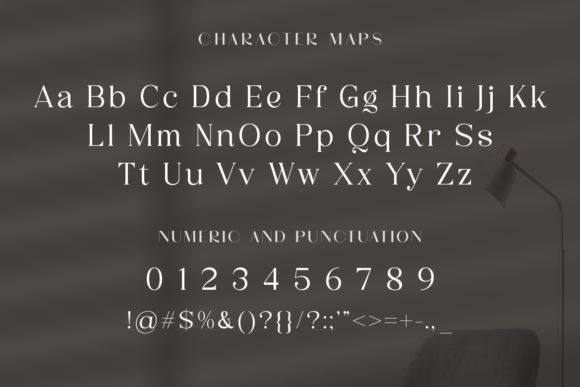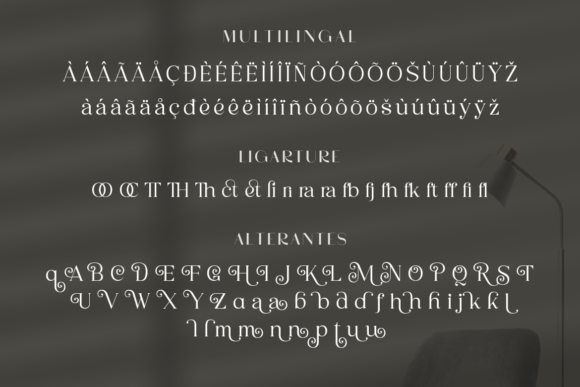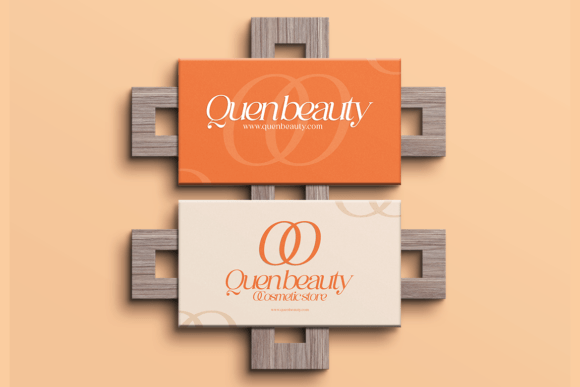
Introduction to Merilia Font
Have you ever stared at a beautiful design and wondered what made it so captivating? For me, it was a stunning advertisement in a fashion magazine. The elegant serif font and crisp, high-quality images immediately caught my attention. As I delved deeper into the design, I realized that the font was the key to its success – the Merilia Font, to be precise.
This modern serif font is more than just a design element; it’s a valuable resource for designers looking to elevate their creative projects. With its sophisticated and refined look, Merilia Font beautifully complements expensive branding materials, advertisements, and skincare product packaging, making it a must-have for any design project.
Whether you’re working on a high-end beauty campaign or a fashion magazine, the Merilia Font is a free download that will take your design to the next level. Its transparent background and high-quality design make it an ideal design resource for any creative project.
Key Features of Merilia Font
- High-quality, versatile design suitable for various creative projects, including digital art, graphic design, and typography.
- Features a transparent background, making it easy to layer and combine with other design elements.
- Includes a comprehensive character set with support for multiple languages, making it an ideal design resource for global projects.
- Can be easily scaled and resized without losing quality, thanks to its high-resolution design (up to 300 DPI).
Honest Review: Merilia Font
As a designer, I’m always on the lookout for high-quality fonts that can elevate my creative projects. The Merilia Font has caught my attention, and I’m excited to share my thoughts on this design resource.
- ✨ Elegant and sophisticated design aesthetic, perfect for upscale branding and marketing materials.
- ⚠️ Limited language support, which may be a concern for designers working on international projects.
- ⚠️ Some users may find the font to be a bit too ornate, which could affect readability.
Overall, I’m impressed with the Merilia Font’s design and versatility. While it may have some limitations, it’s a valuable resource for designers working on high-end projects. With its elegant aesthetic and transparent background, it’s a great addition to any design library.
The Merilia Font is a versatile and creative design resource ideal for high-quality projects. With its unique style and transparent background, it can elevate your designs and make them stand out.
To get the most out of the Merilia Font, use it in combination with other high-quality design resources, such as graphics and images. Experiment with different font sizes, colors, and arrangements to create unique and eye-catching designs.
The Merilia Font is ideal for a wide range of creative projects, including:
- Presentations
- Posters
- Business cards
- Brochures